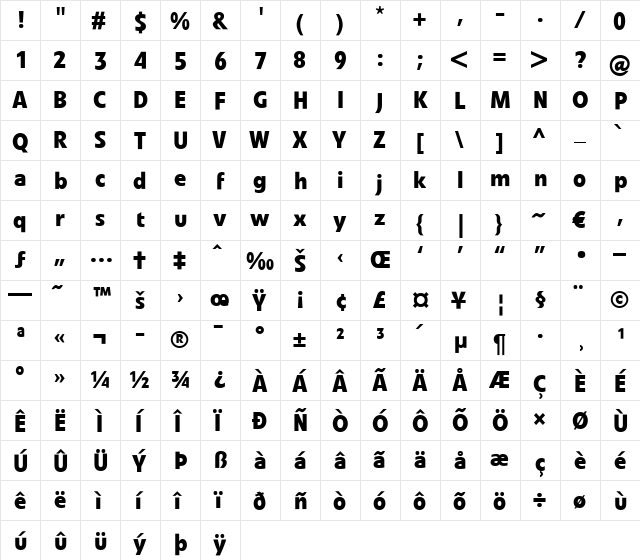
LTVeto Regular Bold Font Preview
LTVeto Regular Bold
LTVeto Regular Bold Font Details
| Designer | Marco Ganz |
Design Context for LTVeto Regular Typeface
LTVeto Regular takes a measured approach to typography — its balanced proportions and neutral character make it a reliable workhorse for both digital and print work. Its bold stroke weight gives it real presence on the page.